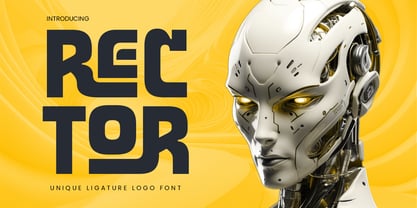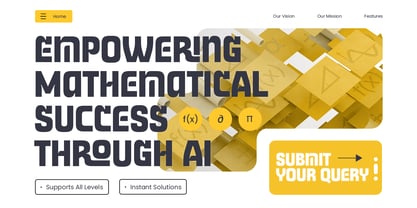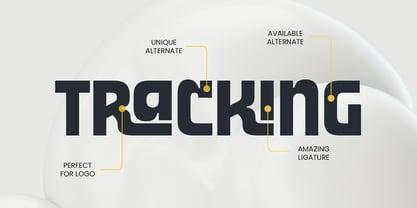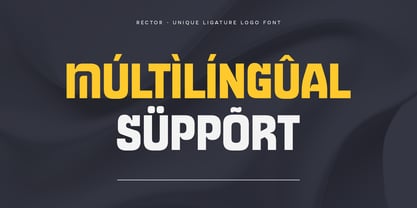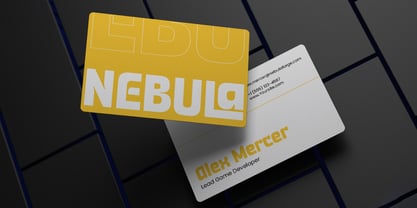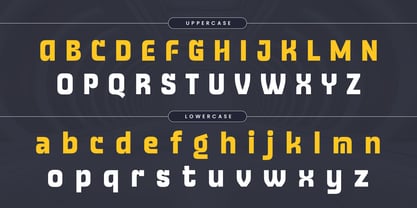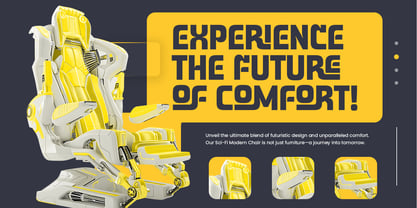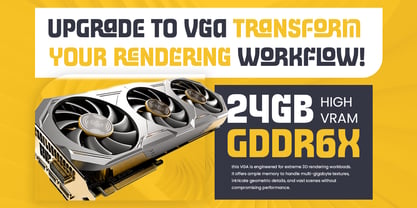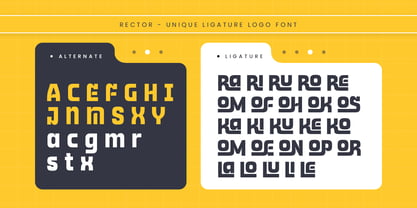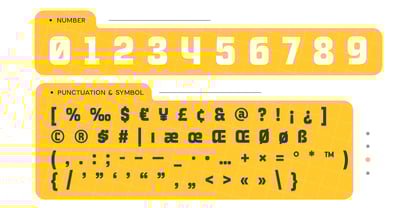
Rector
A família de fontes Rector foi desenhada por Zamroni Hamzah e publicada pela Sensatype Studio. Rector contém 2 estilos e opções de pacote familiar. Saiba mais sobre esta família
Rector - Unique Ligature Sci-fi Futuristic Font
Rector is a unique sci-fi futuristic logo font designed to bring innovation and boldness to your projects. Its futuristic ligatures and sleek letterforms make it perfect for tech branding, game logos, or any project where you want to push the boundaries of modern design. Rector’s clean lines and sci-fi aesthetic provide a forward-thinking look that grabs attention.
Inspired by the future of technology, Rector combines modern design principles with bold sci-fi elements. It’s ideal for creating standout branding in industries like tech, gaming, and entertainment, offering a sleek, innovative style that sets your logo apart. Whether for web, print, or digital branding, Rector’s futuristic charm shines through.
With Rector, your designs can embody the future, providing a bold, sophisticated, and forward-thinking logo experience that resonates with modern, tech-savvy audiences.
Rector Unique Ligature Sci-fi Futuristic Logo Font Features:
• Unique Ligature Characters Ready
• Punctuation, Number, and Symbol
• Uppercase and Lowercase
• Multilingual Support
• Opentype Features